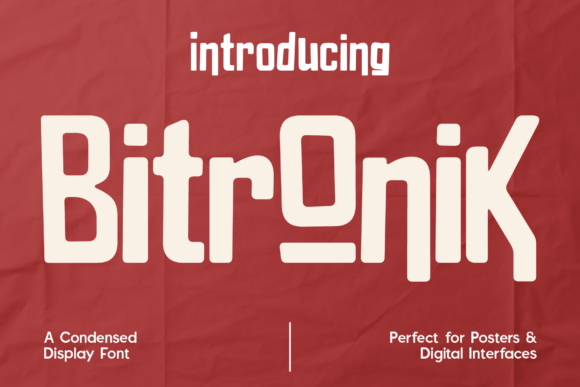
Introducing Bitronik: The Futuristic Condensed Display Font
Have you ever been in the middle of a design project, and suddenly, you’re stuck on finding the perfect font? I recall a recent experience where a client asked for a font that screamed “futuristic” and “digital” for their new tech startup. After scouring through countless font libraries, I stumbled upon Bitronik – a sharp, condensed display font that perfectly captured the essence of innovation and modernity.
What Makes Bitronik Special?
Bitronik is more than just a font – it’s a design statement. Its clean yet edgy letterforms feature subtle modular touches and geometric precision, making it perfect for tech-inspired designs, posters, UI interfaces, logos, and branding that needs a strong digital personality.
Why Choose Bitronik?
• ⚡️ Futuristic Energy: Tech-inspired forms with a unique condensed structure.
• 📱 Made for Digital: Optimized for screens, apps, UI/UX, and web design.
• 🎯 Versatile Impact: Works for branding, event posters, music visuals, and startups.
• 💬 Highly Readable: Maintains sharpness and clarity even at small sizes.
• 🌐 Multilingual Ready: Full character set with numbers, punctuation, and language support.
What I Love About Bitronik ✨
• ✅ Unique and Memorable: Bitronik’s futuristic design makes it stand out from more traditional fonts.
• ✅ Highly Versatile: Works well for both digital and print projects.
• ✅ Easy to Read: Despite its condensed structure, Bitronik remains clear and legible.
• ⚠️ Limited Use Cases: Bitronik’s bold style might not be suitable for body text or lengthy paragraphs.
• ⚠️ Glyph Overload: With so many OpenType features and glyphs, it can be overwhelming to navigate.
The Story Behind Bitronik
Bitronik was designed with the modern digital world in mind. Its creator aimed to craft a font that would embody the spirit of innovation and technology. With its unique blend of geometric precision and subtle modular touches, Bitronik has become a go-to font for designers looking to add a futuristic flair to their projects.
Q: What is Bitronik, and what makes it unique?
Bitronik is a futuristic condensed display font designed for the modern digital world. Its unique blend of geometric precision and subtle modular touches sets it apart from other fonts.
Q: Is Bitronik suitable for body text?
While Bitronik is highly legible, its bold style might not be suitable for lengthy paragraphs or body text. It’s best used for headlines, titles, and short text elements.
Q: Does Bitronik support multilingual text?
Yes, Bitronik comes with a full character set, including numbers, punctuation, and language support, making it a great choice for multilingual projects.